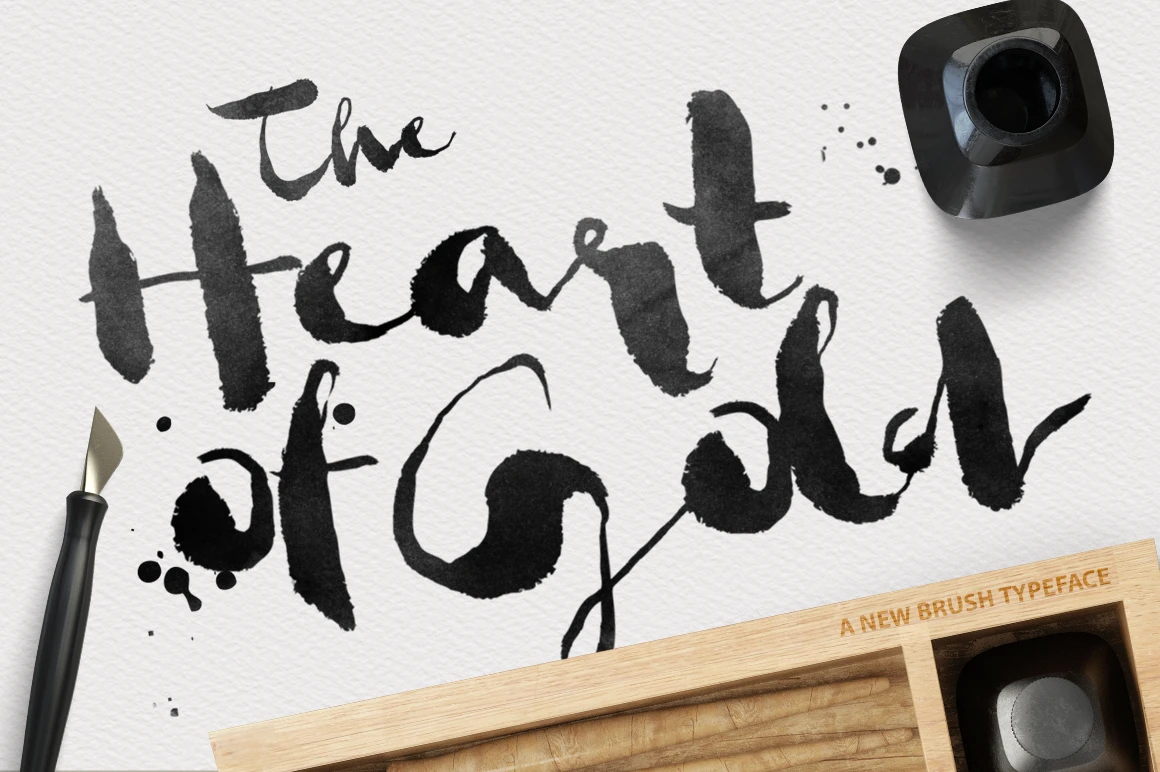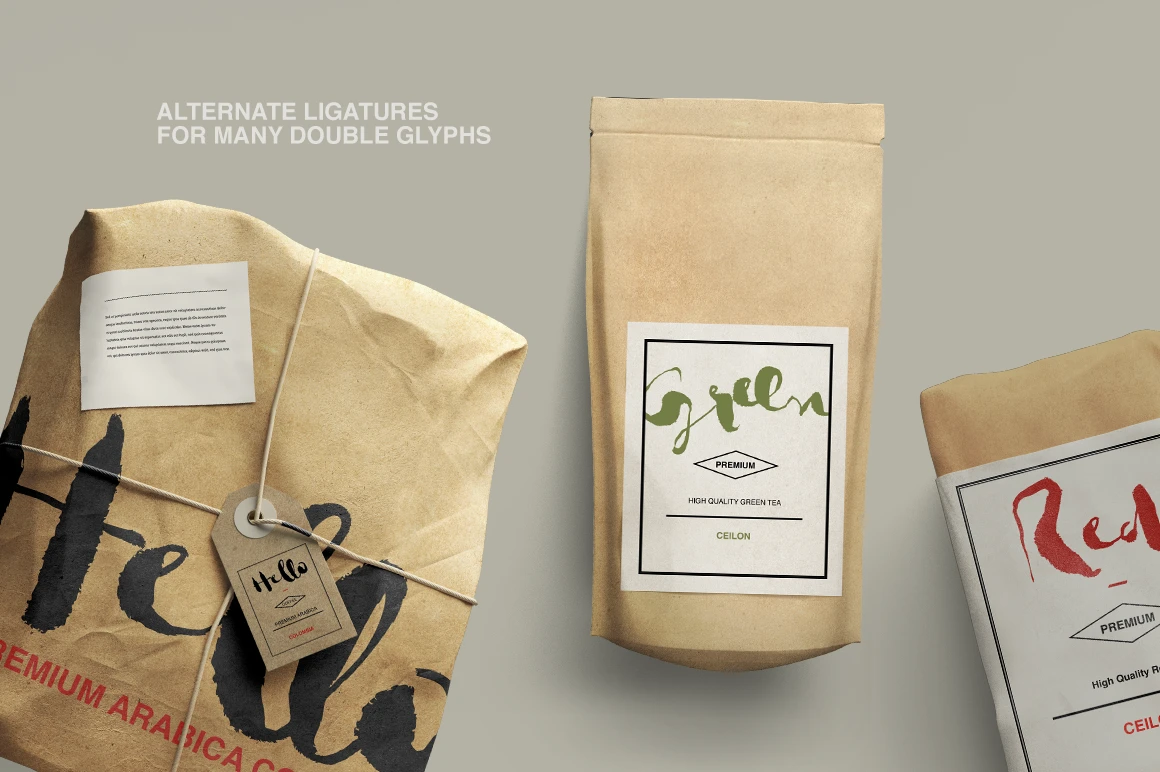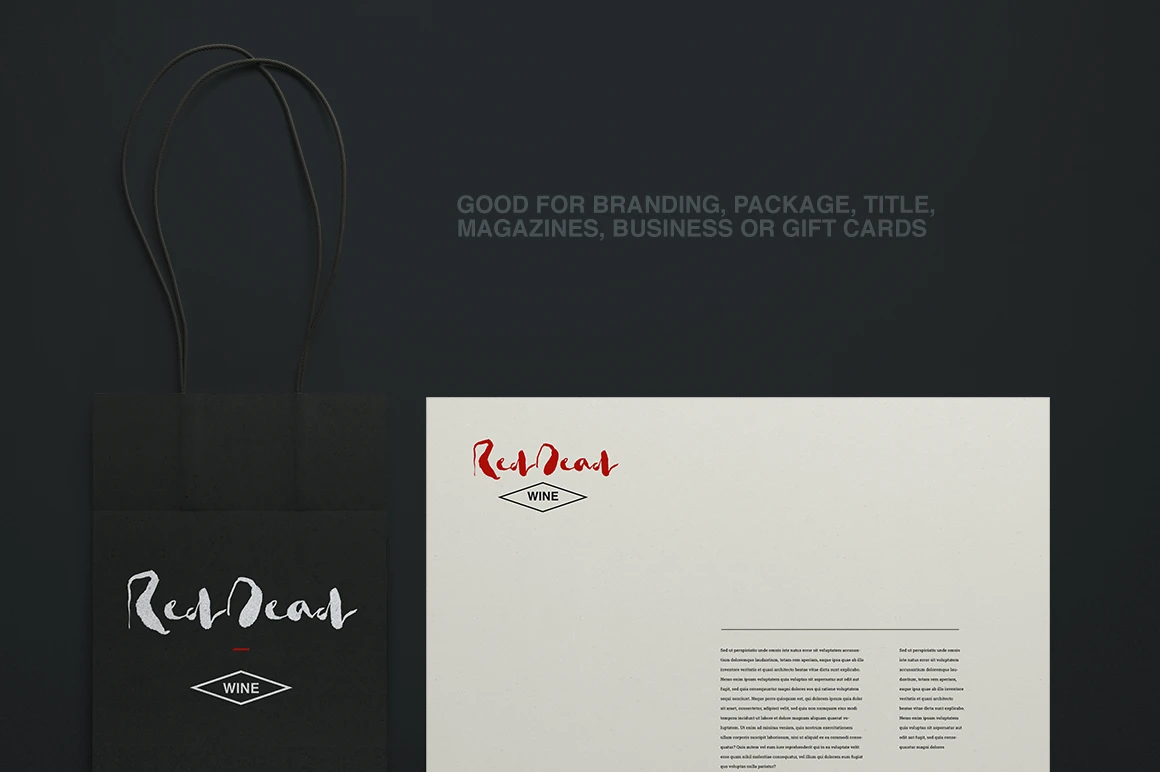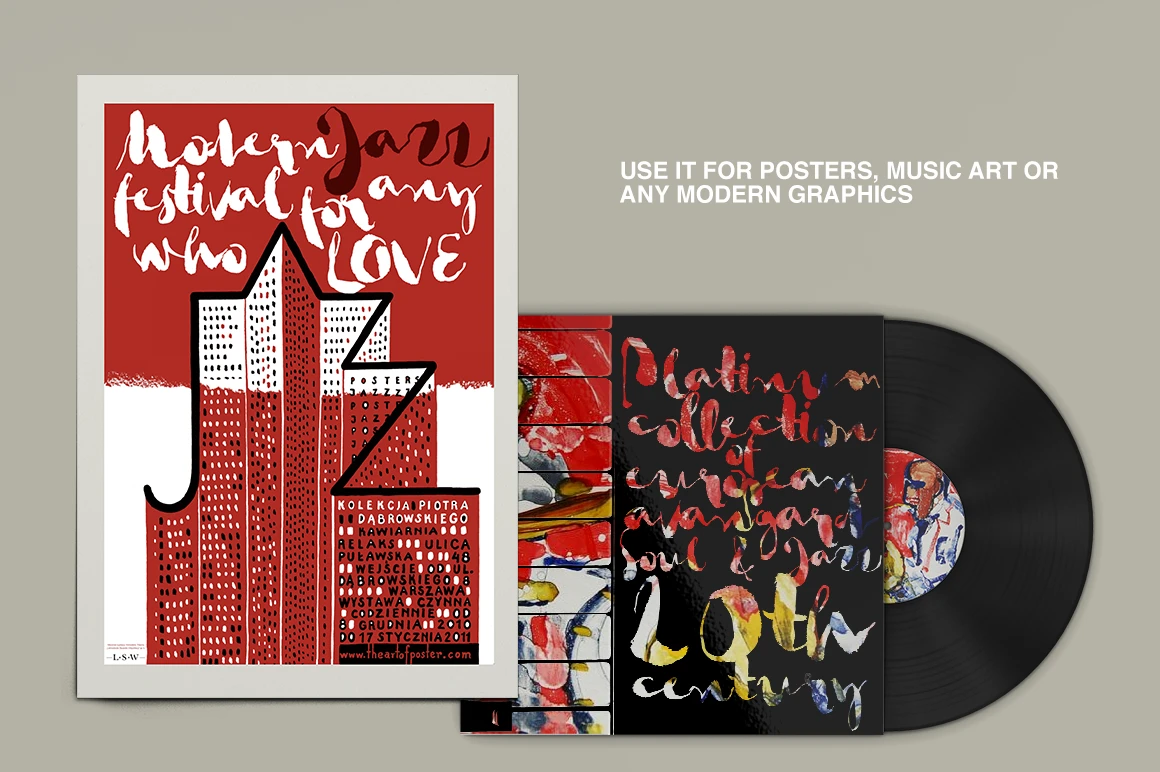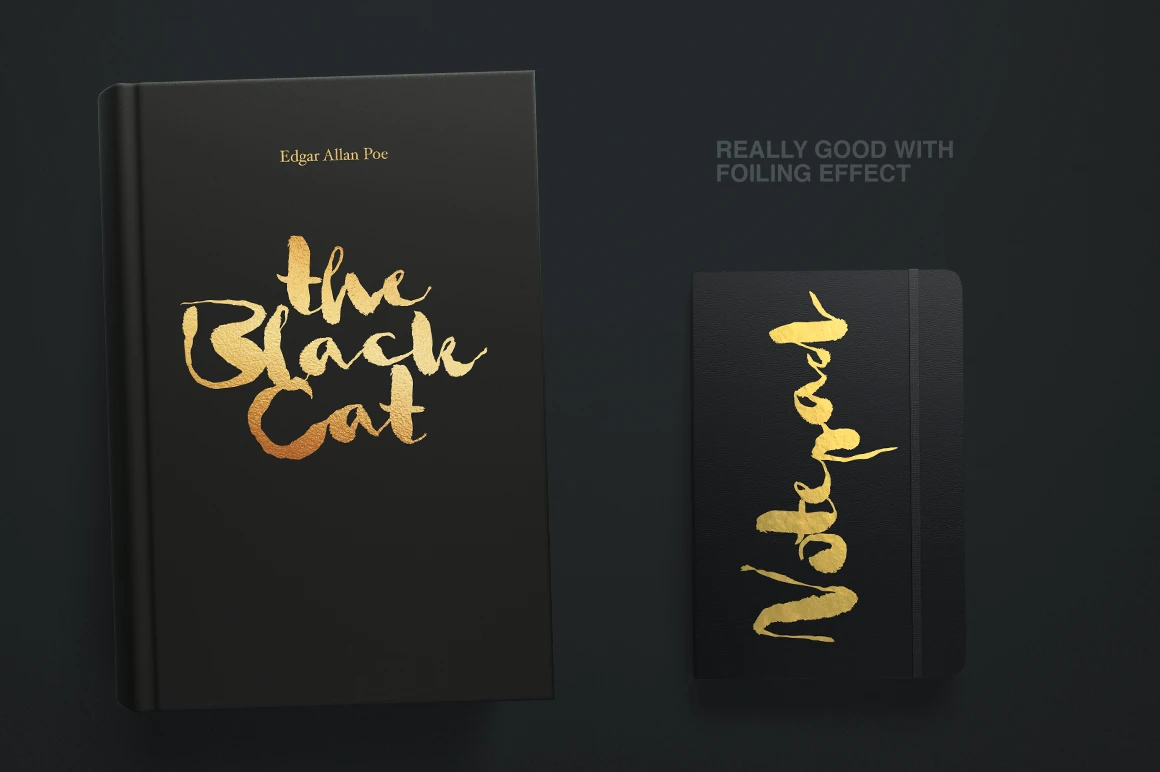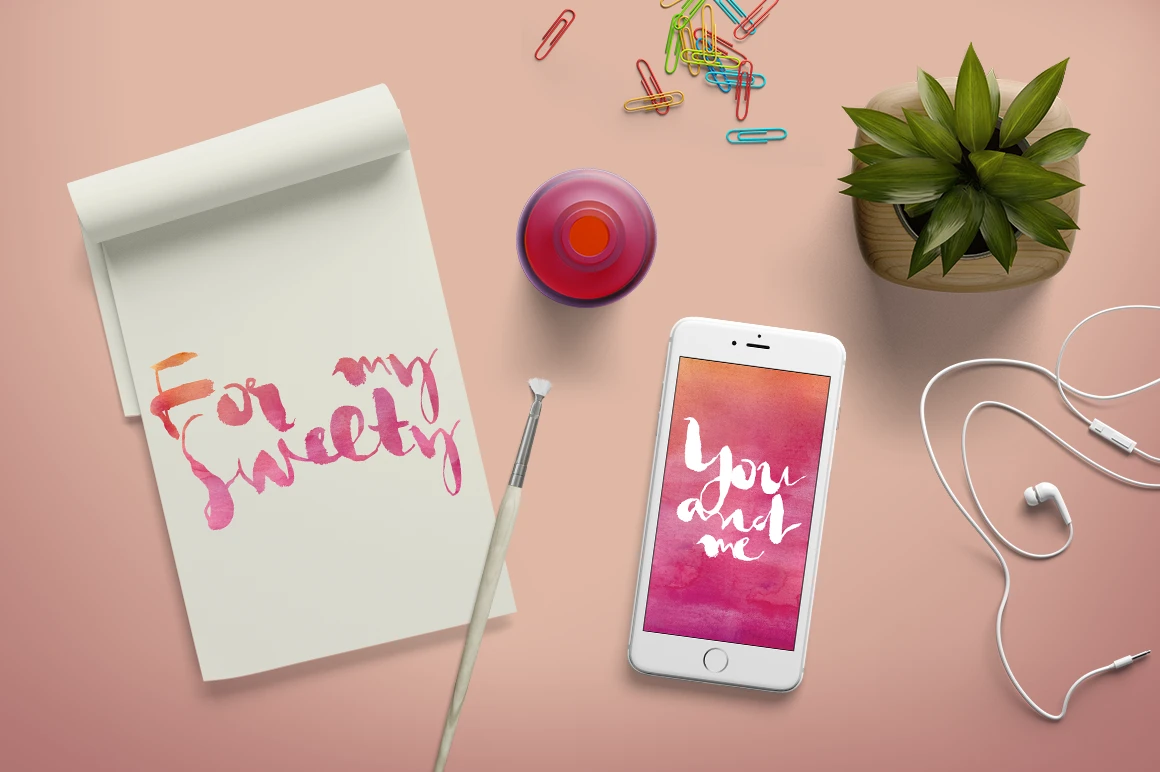
Heart of Gold Font
Heart of Gold is a modern hand-lettered brush typeface with a bold, abstract style. Designed to make a strong impression in titles, logos, branding, packaging, gift cards, and more. Works especially well with foiled or watercolor effects for a rich, expressive look. Ideal for modern art covers, posters, and creative projects that call for energy and artistic flair. Crafted to bring a personal, impactful touch to contemporary design.
• Common Ligatures
• Discretionary Ligatures